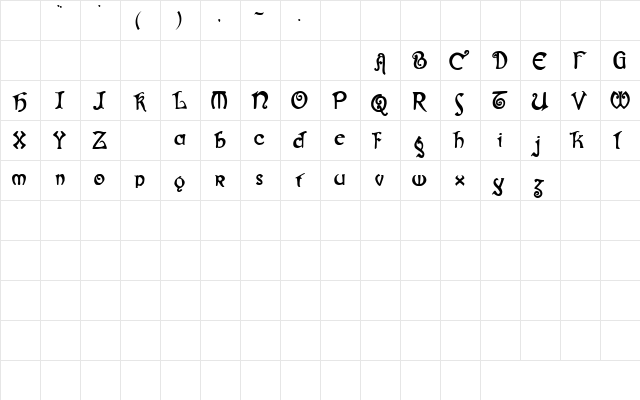
Gjallarhorn Regular
Design Context for Gjallarhorn Typeface
Gjallarhorn is a composed and adaptable typeface that performs quietly and consistently across a wide range of design contexts.